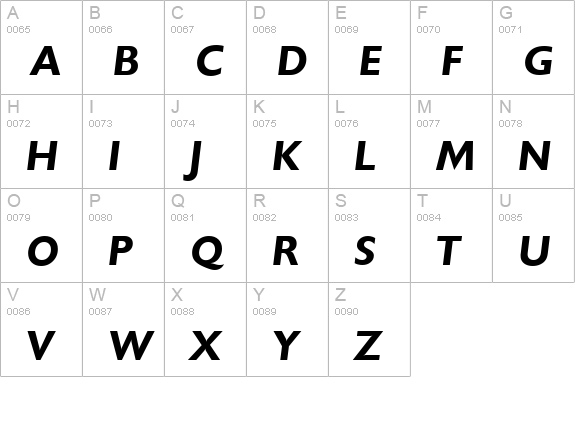
ChantillySerial-BoldItalic Font Details
ChantillySerial-BoldItalic is a bold and stylish font that exudes elegance and sophistication. Its slanted italic design adds a touch of flair to any project, making it perfect for headings, titles, and other attention-grabbing text. The strong, confident strokes of this typeface give your words a bold presence on the page. And the best part? ChantillySerial-BoldItalic is available for free download at FontsMarket.com. This means you can easily elevate your designs with this stunning font without any cost. Don't miss out on the opportunity to enhance your projects with the beauty and versatility of ChantillySerial-BoldItalic. Download it today and let your creativity shine!